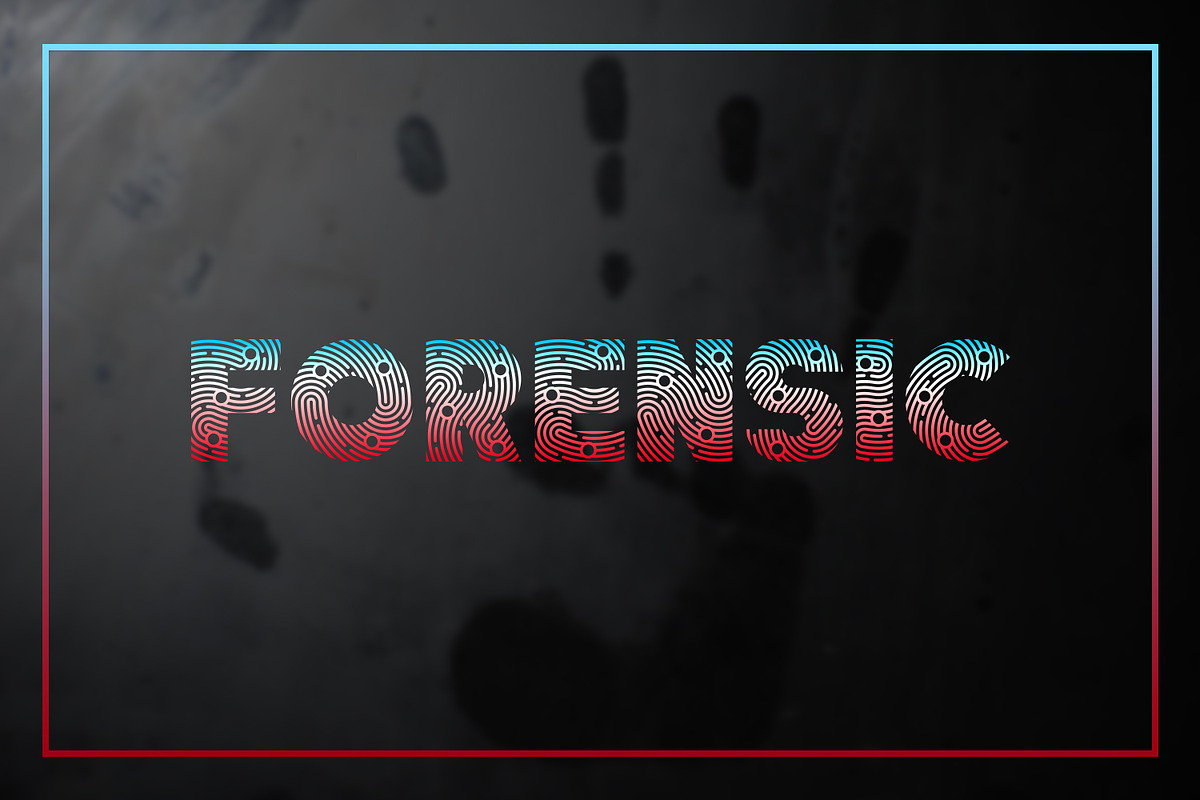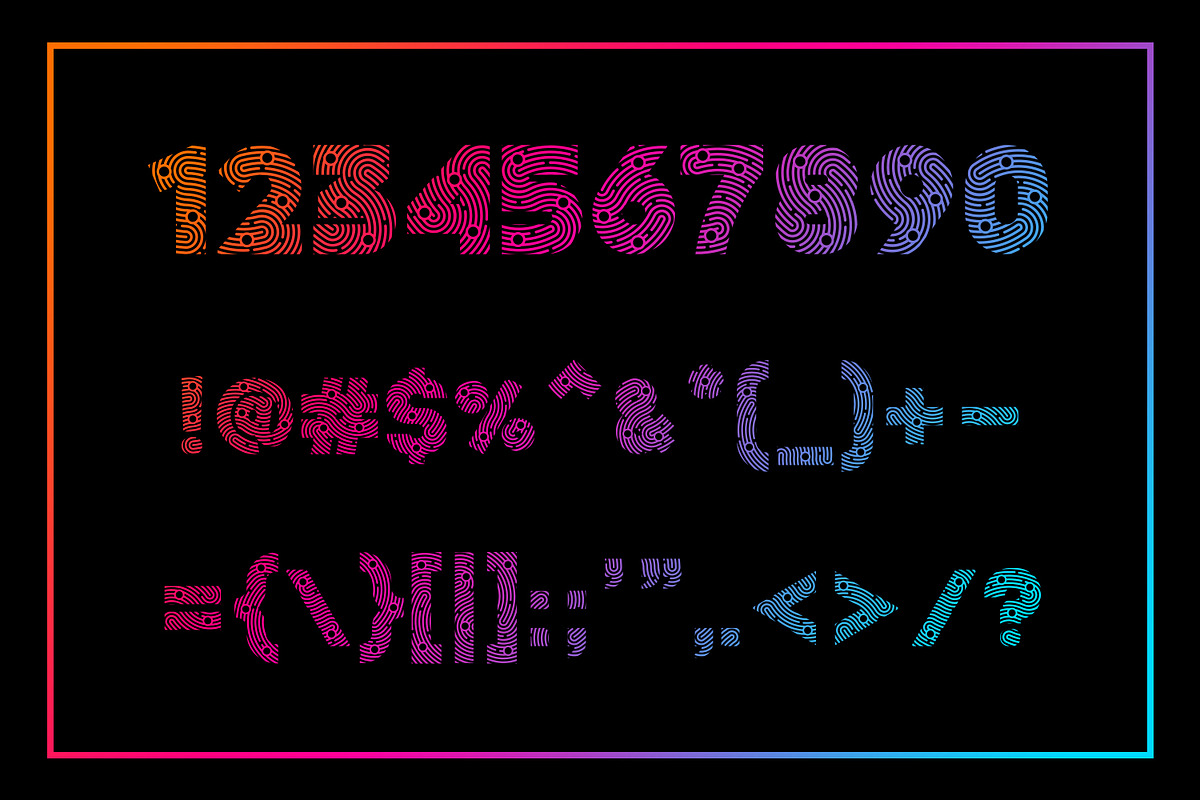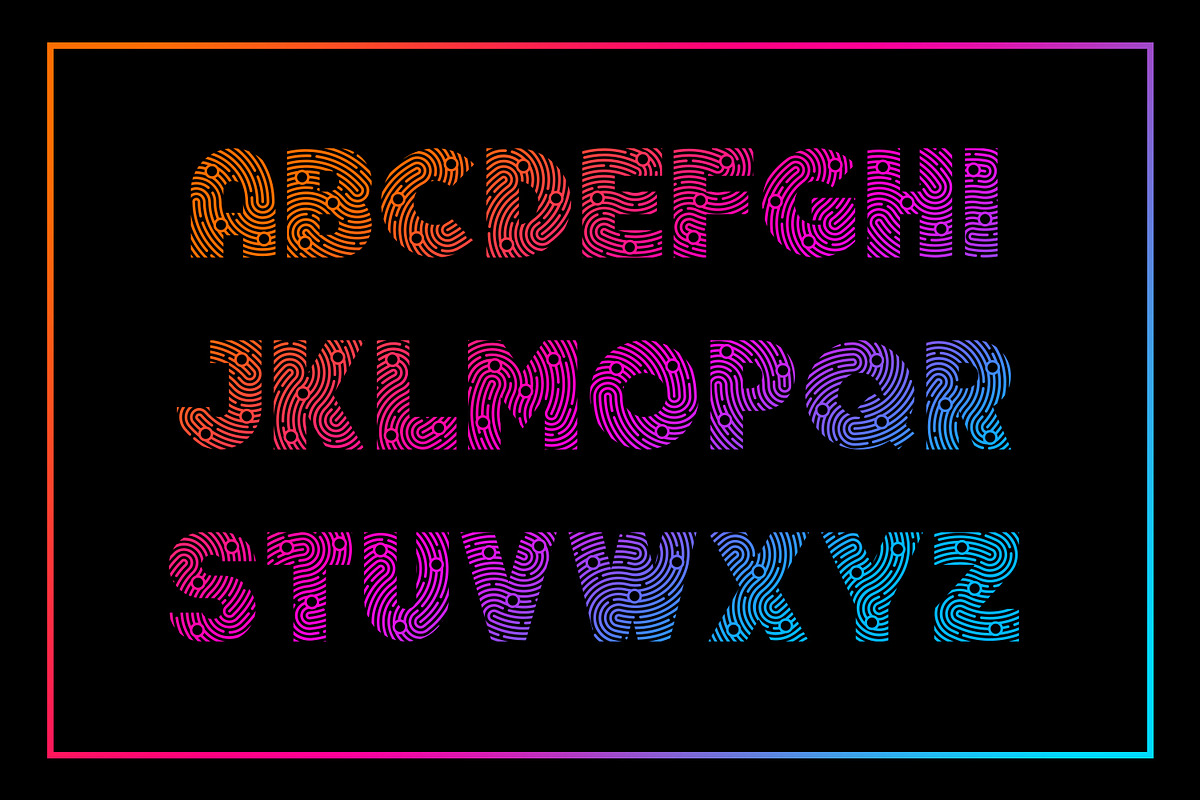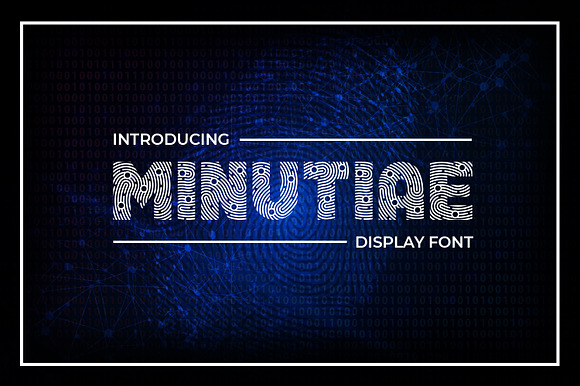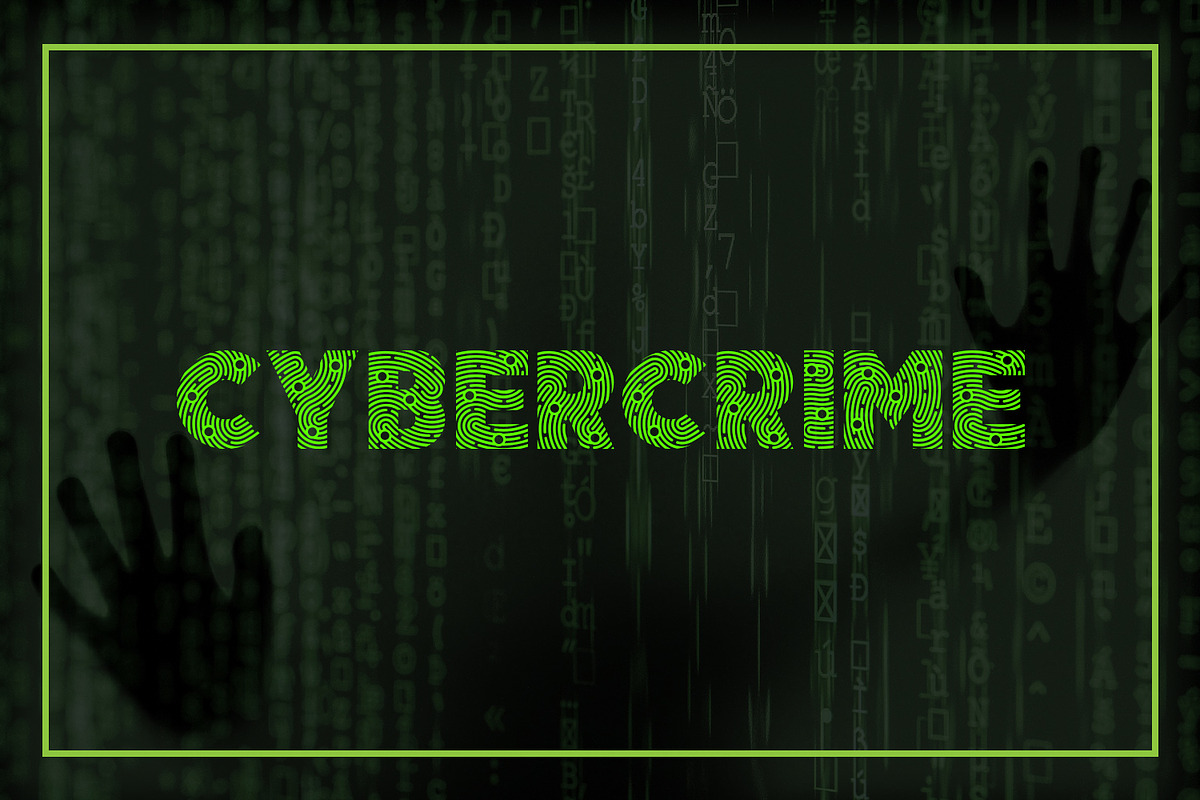
Minutiae Display Font
Minutiae is an all uppercase display font with fingerprint minor details biometric recognition pattern. Suitable for thriller, crime, forensic, mystery, and action genre.
- Minutiae is an all uppercase display font with fingerprint minor details biometric recognition pattern.